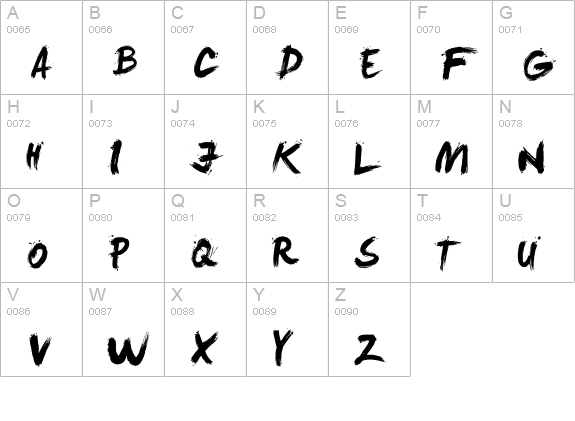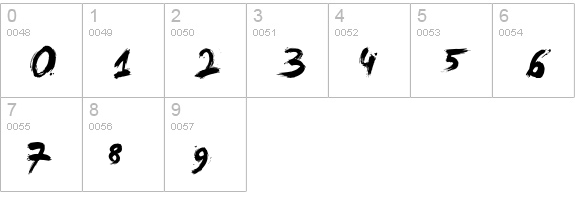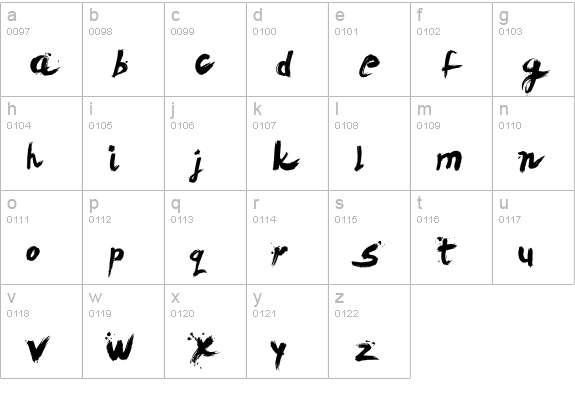
LeviBrush Font Details
LeviBrush is a stunning and versatile font that radiates elegance and sophistication. With its unique brush-style design, LeviBrush is perfect for adding a touch of creativity and flair to any project. Whether you are working on a logo, branding, or any creative endeavor, LeviBrush is sure to make a bold statement. This font features a perfect balance of fluidity and structure, making it suitable for a wide range of design applications. Its charming and modern style will captivate your audience and leave a lasting impression. LeviBrush is a free font, available to download at FontsMarket.com. Don't miss out on this opportunity to enhance your designs with the beauty and versatility of LeviBrush.